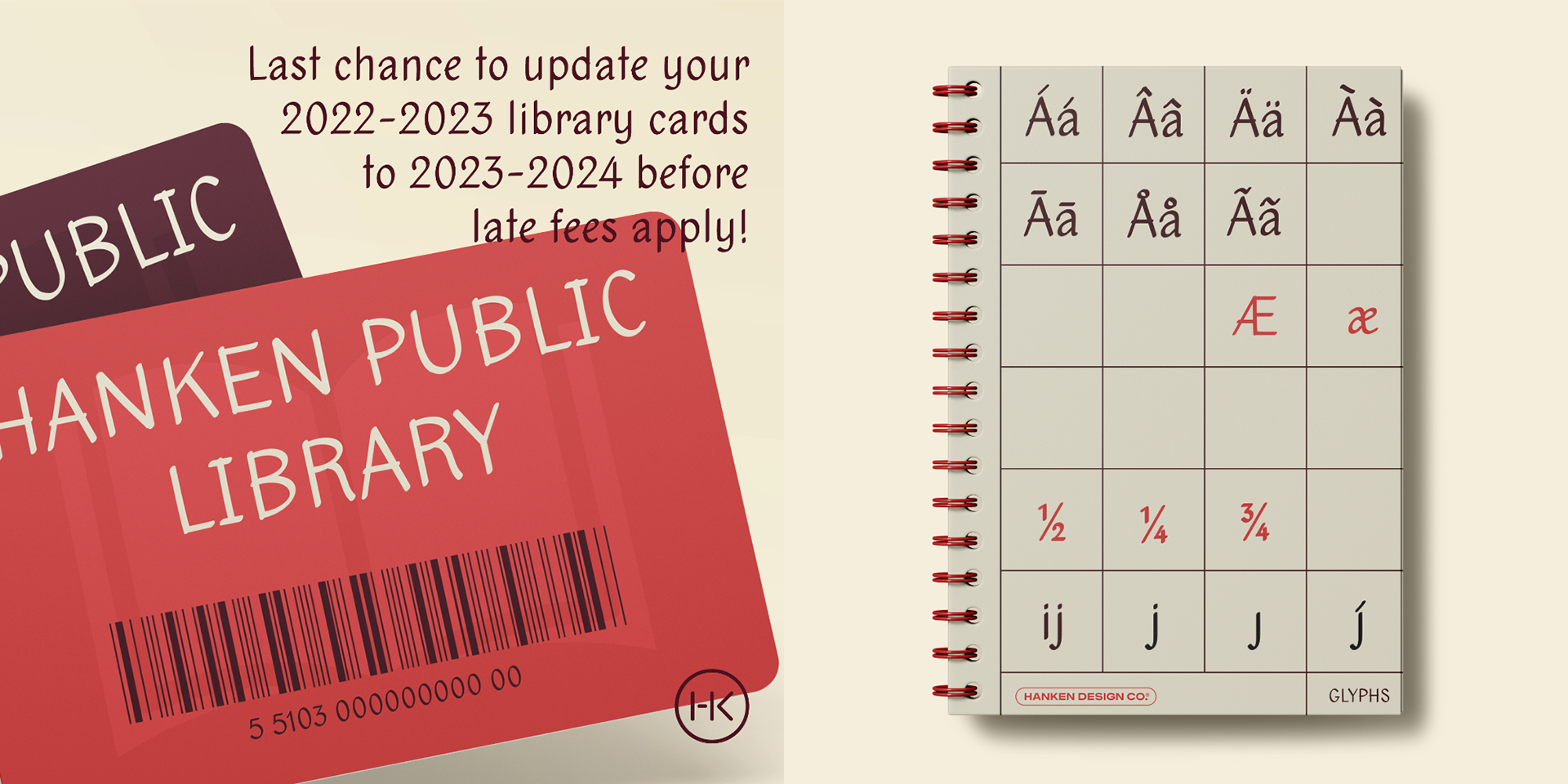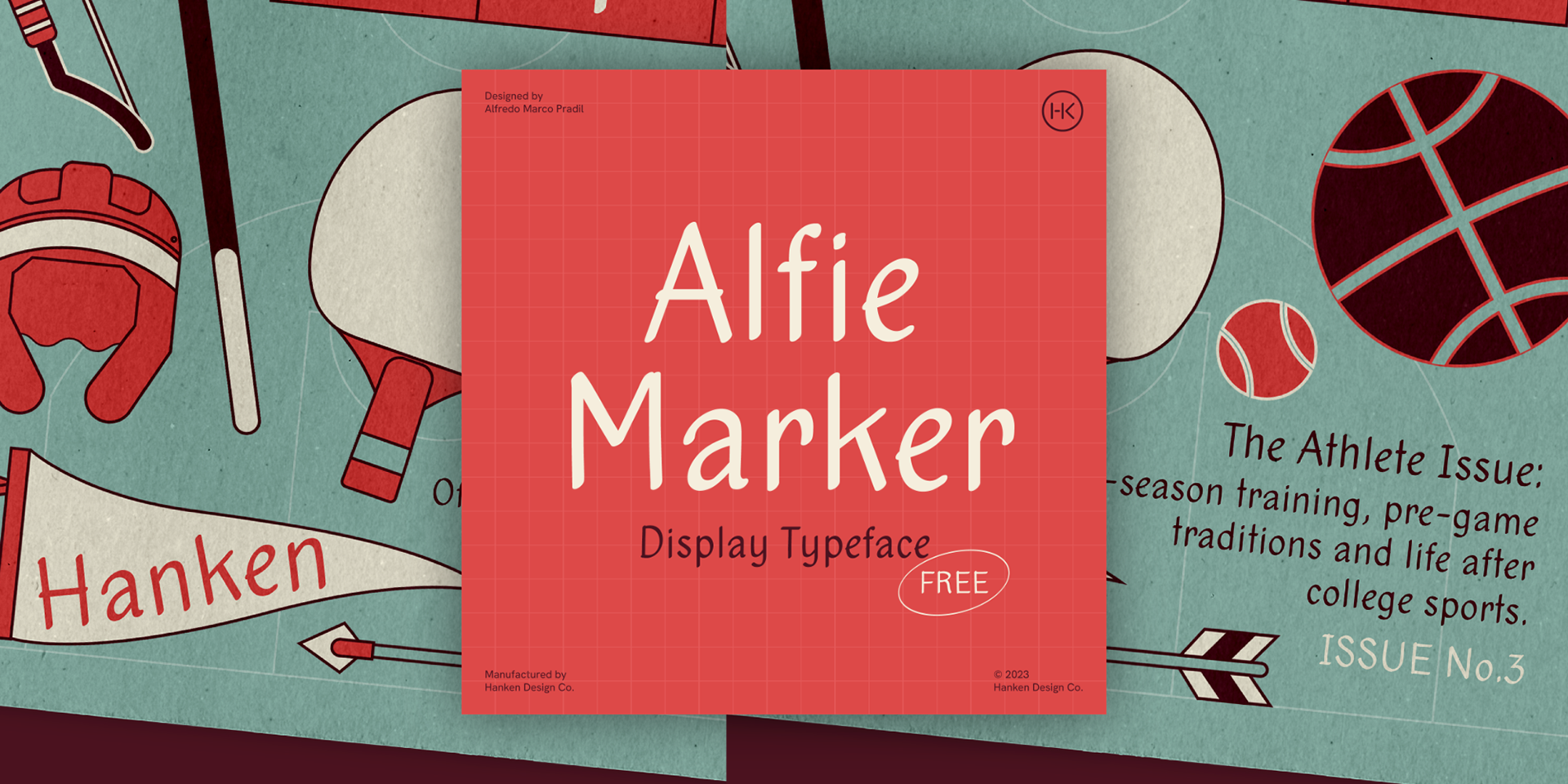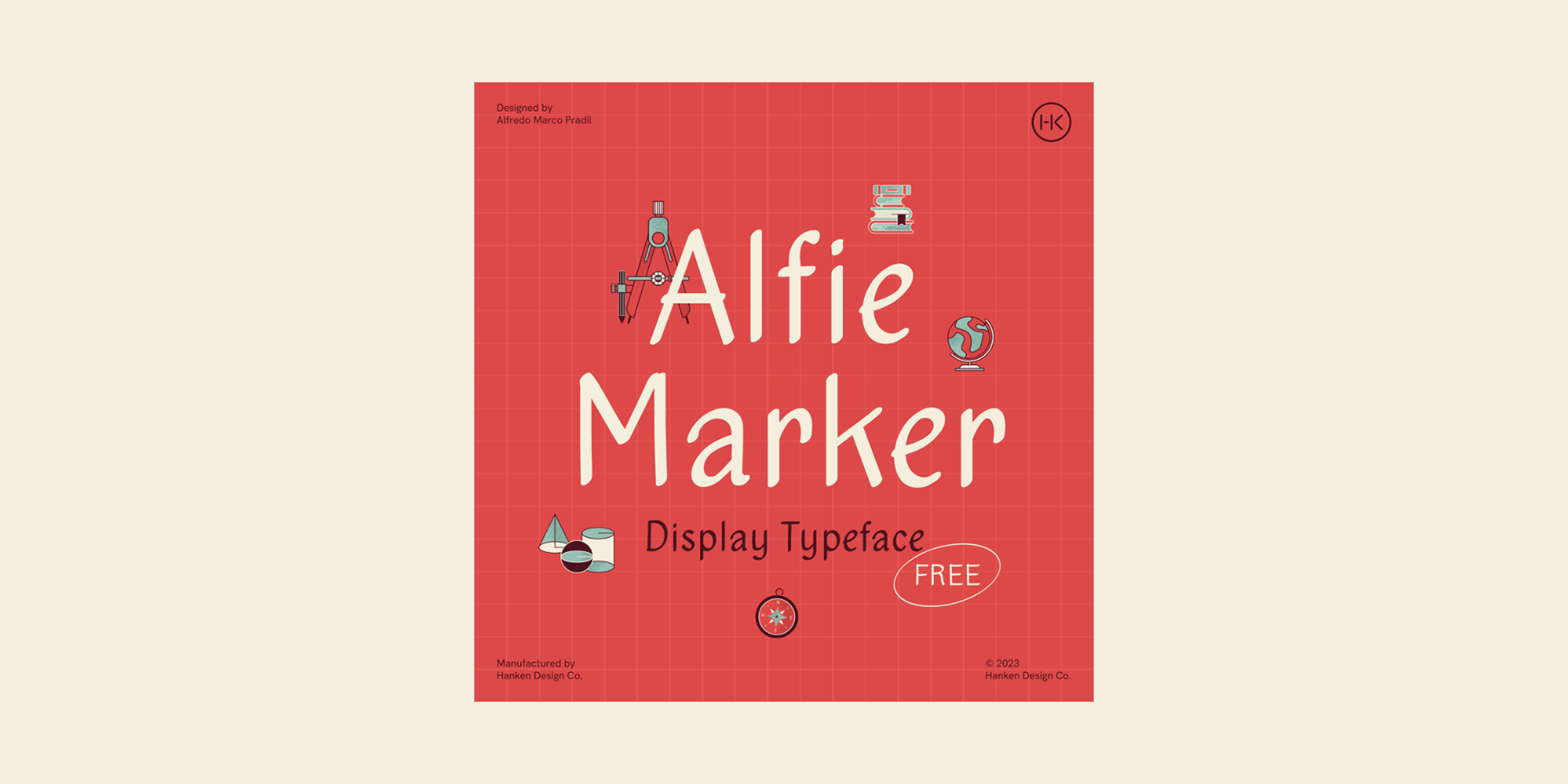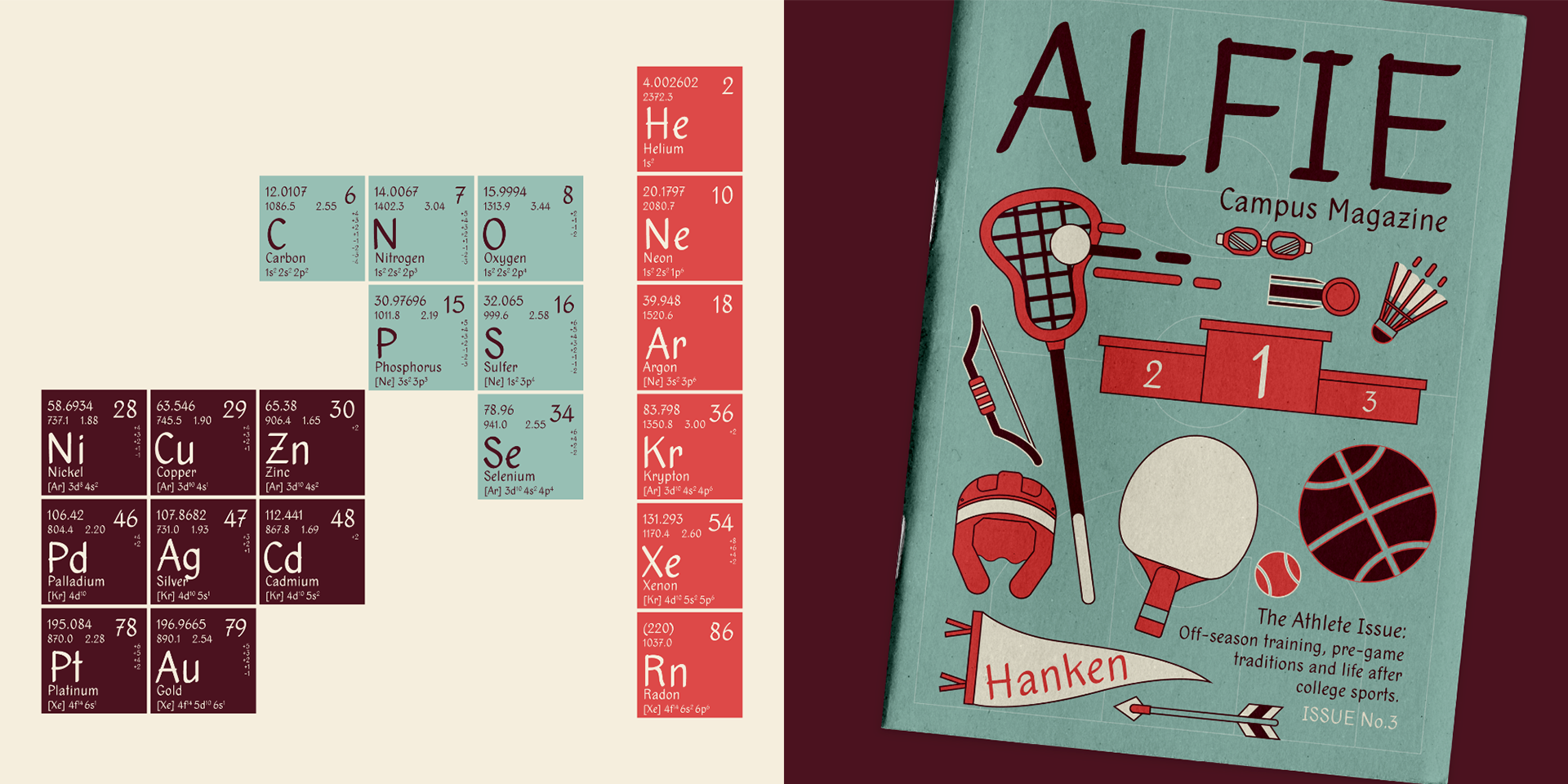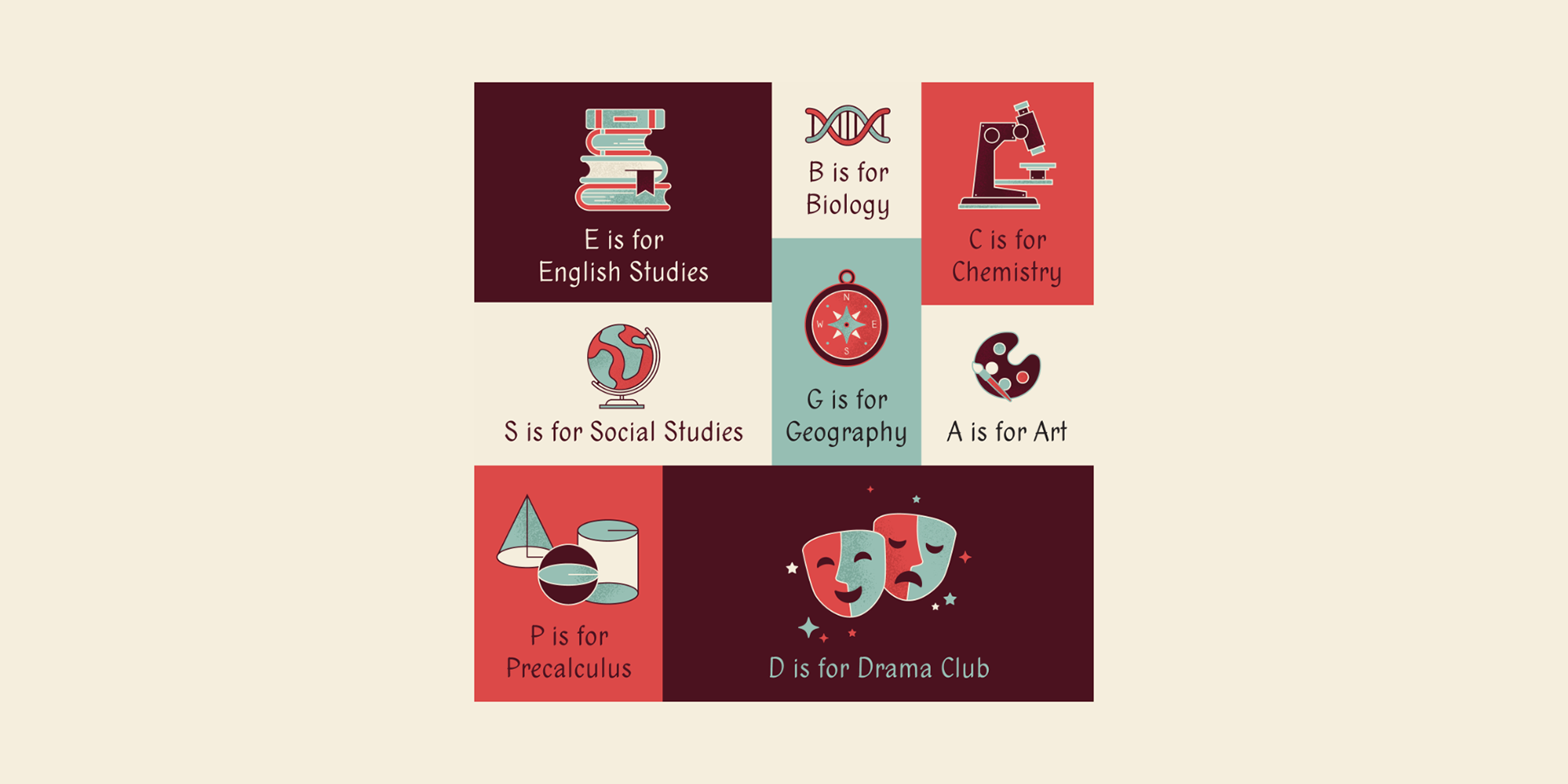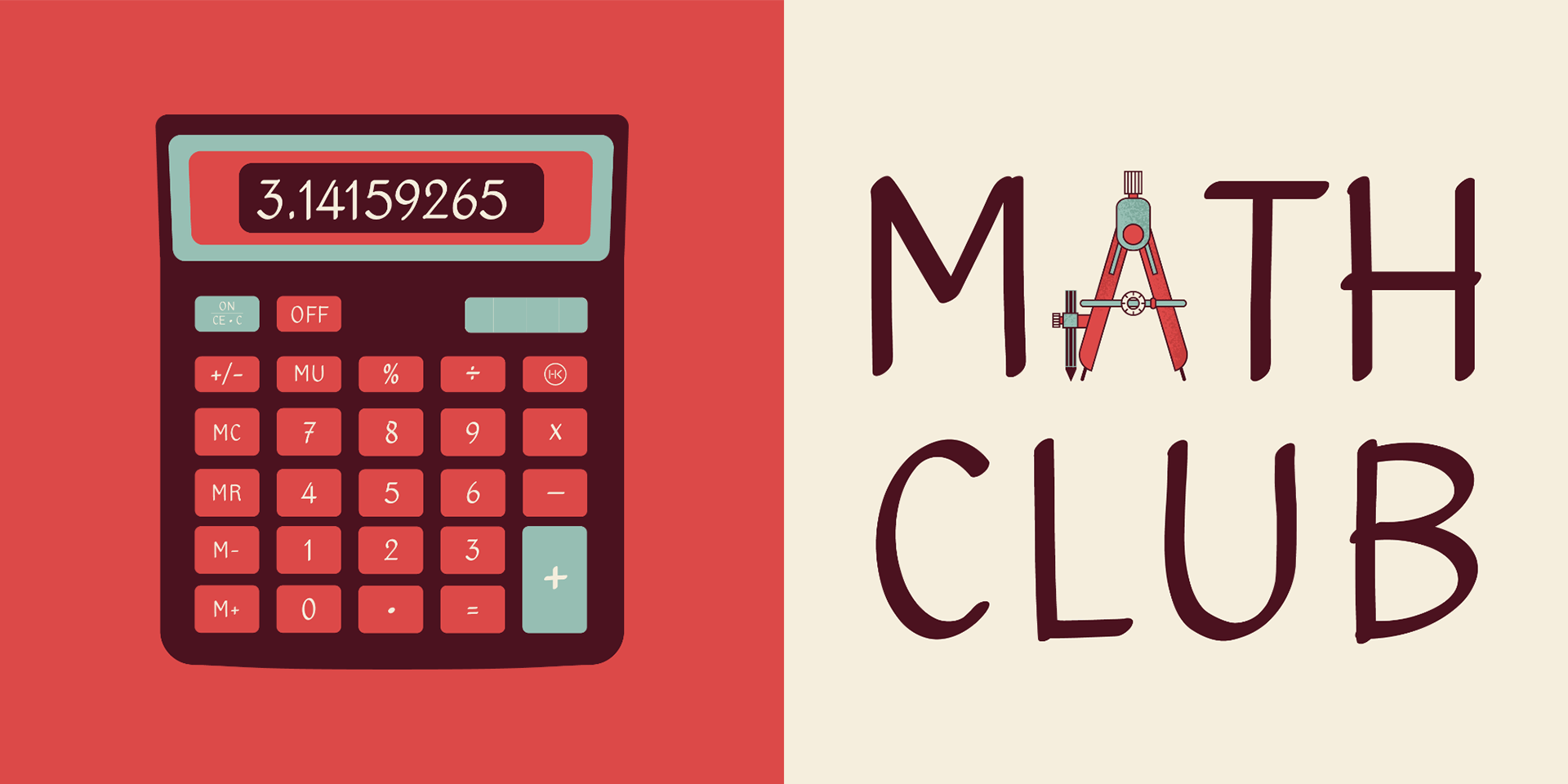
Alfie Marker Free Font
Introducing Alfie Marker Display Typeface. Unleash your creativity with Alfie Marker, a display typeface crafted to embody the expressive fluidity of marker writing. The contrast between thick and thin strokes creates a rhythmic visual effect, adding a touch of harmony to your text. Drawing inspiration from the bold strokes and dynamic energy of markers on paper, Alfie Marker is designed to captivate the eye and inject a sense of playfulness into your designs. Whether you're designing attention-grabbing headlines or eye-popping posters, Alfie Marker combines fun and legibility, making your message impossible to ignore. Each character carries a sense of organic motion, lending a lively rhythm to your text and captivating the reader's eye.